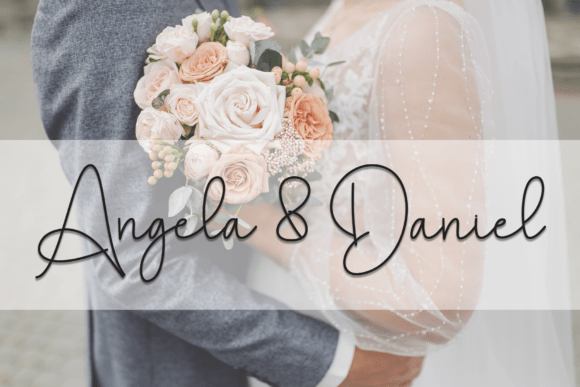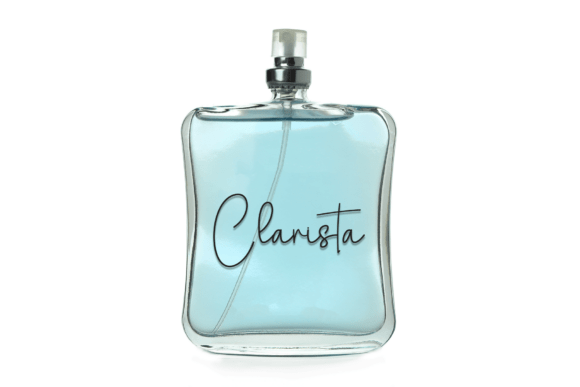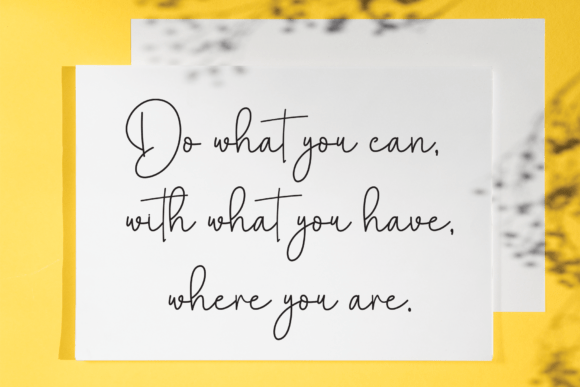
Charming Simple Font
Elegant and expressive, this script font flows with effortless beauty. Featuring graceful curves and smooth connections, it’s ideal for adding a sophisticated, handwritten feel to wedding invitations, logos, branding projects, and social media graphics. Whether you're designing something romantic or refined, this script font brings a timeless charm to any design.